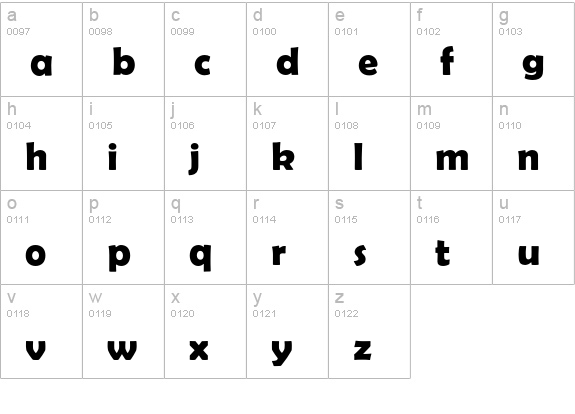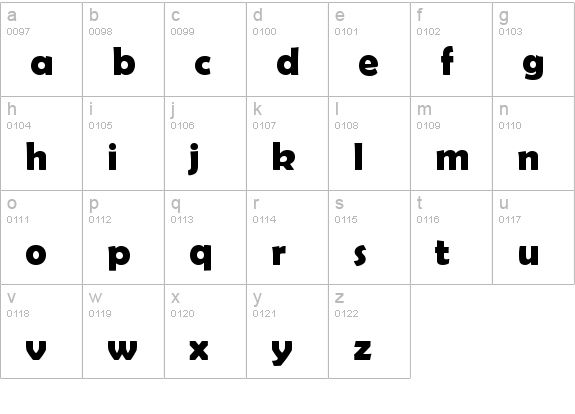
Berlinsans-Demi is a sub-bold, structured variant in the Berlinsans typeface family \xE2\x80\x94 well suited to sub-headlines and emphasised passages.
Berlinsans-Demi font is a modern and stylish typeface that exudes elegance and sophistication. With its bold and clean lines, this font is perfect for making a statement in your designs. The sleek and professional look of Berlinsans-Demi font makes it ideal for a wide range of projects, from branding to editorial design. What makes Berlinsans-Demi font even more appealing is that it is completely free to download. You can easily access this high-quality font at FontsMarket.com without any cost. Whether you are a designer looking to add a touch of class to your creations or an individual seeking a stylish font for personal use, Berlinsans-Demi font is the perfect choice. Download it today and elevate your designs with this beautiful typeface.